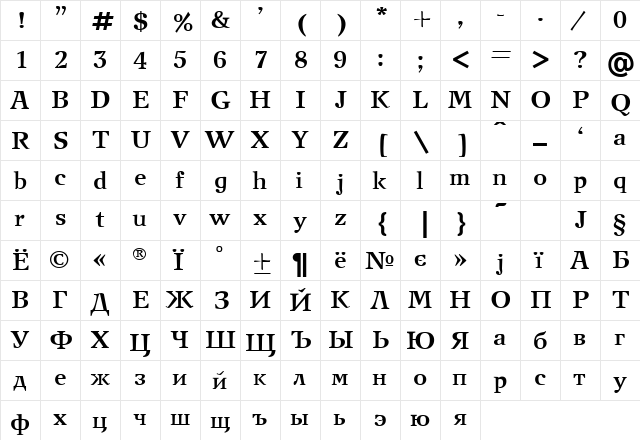
NewJournalC Bold
Design Context for NewJournalC Typeface
NewJournalC takes a measured approach to typography — its balanced proportions and neutral character make it a reliable workhorse for both digital and print work. The heavy weight commands attention and anchors typographic hierarchies.